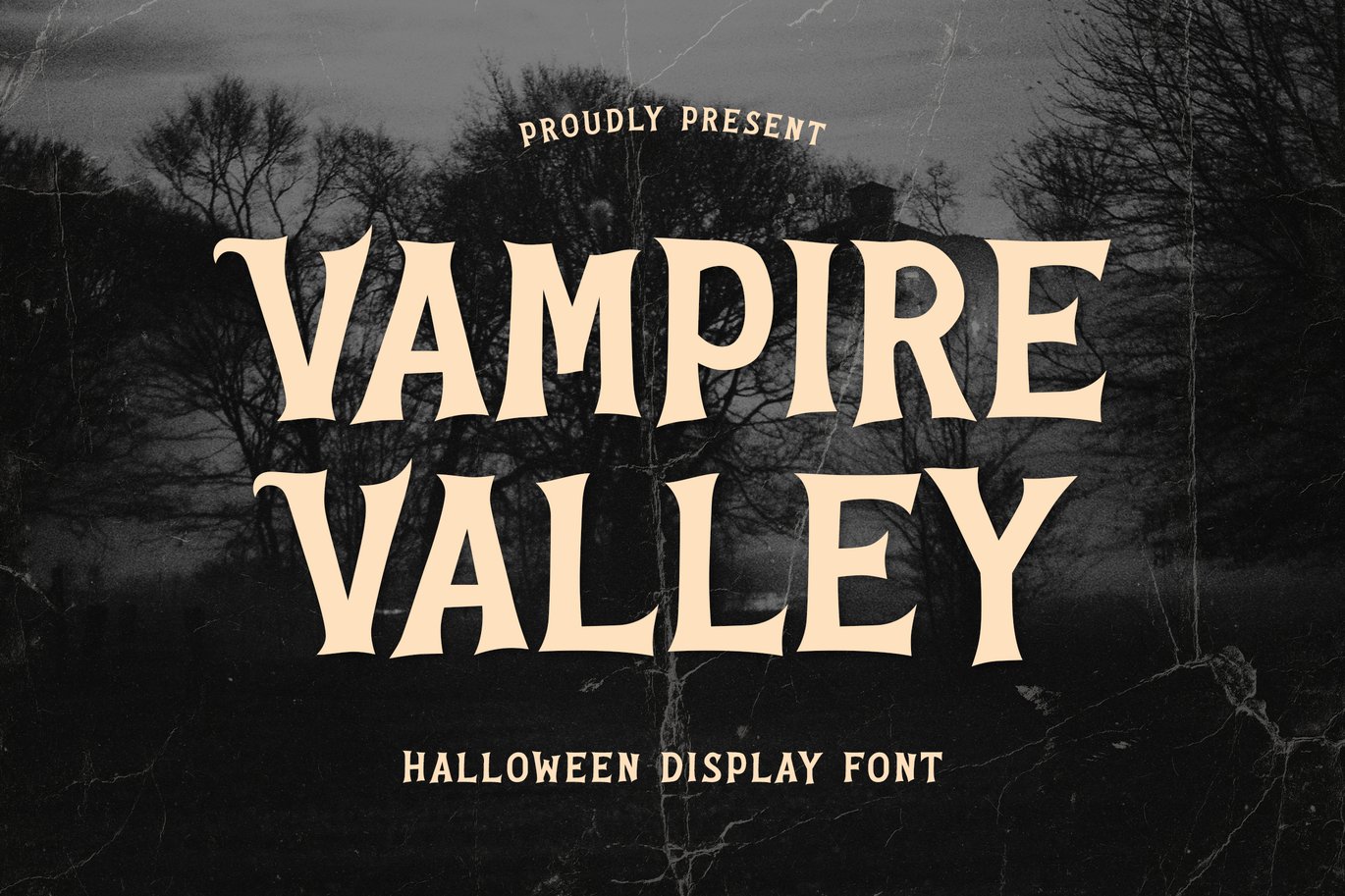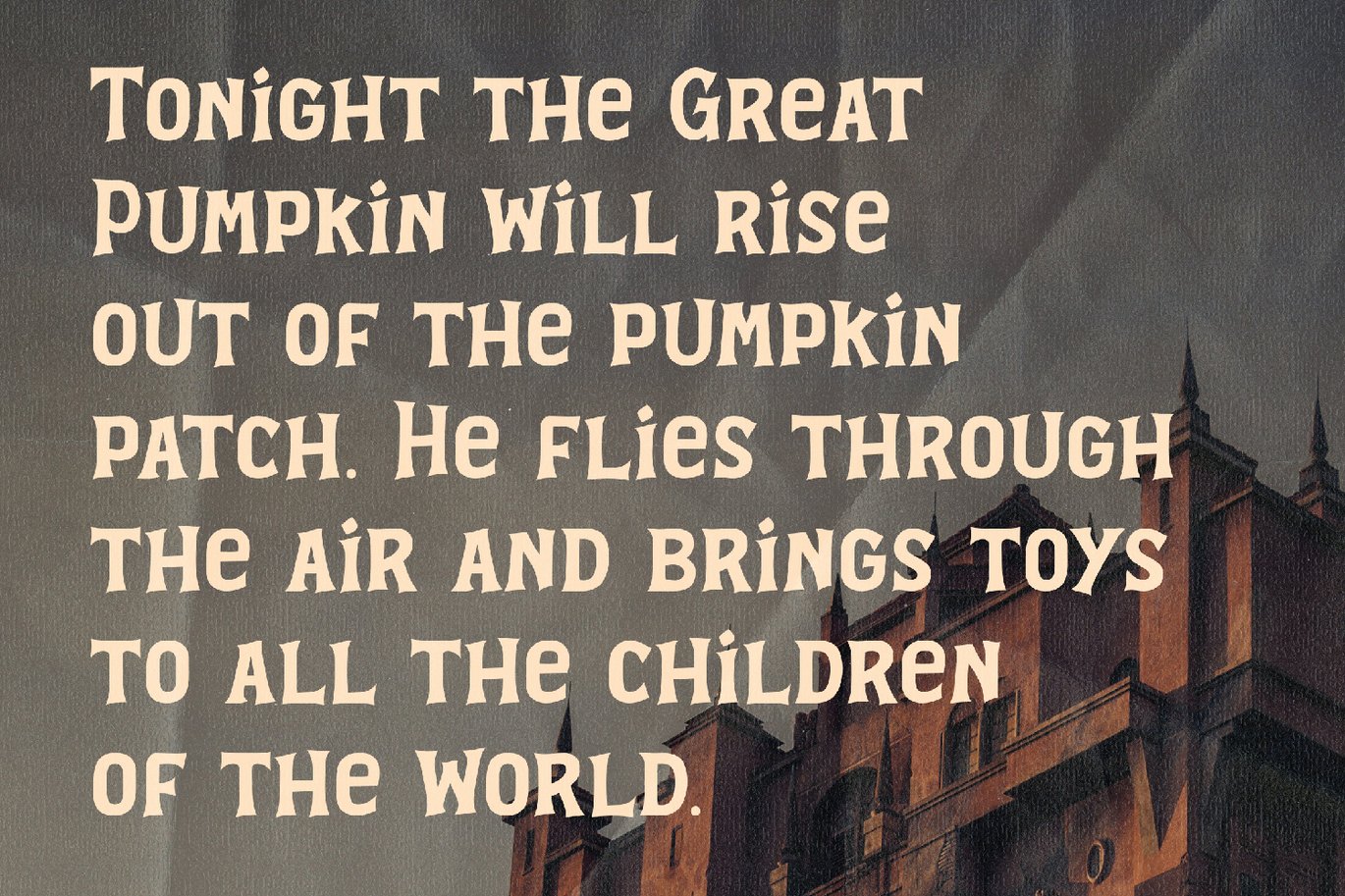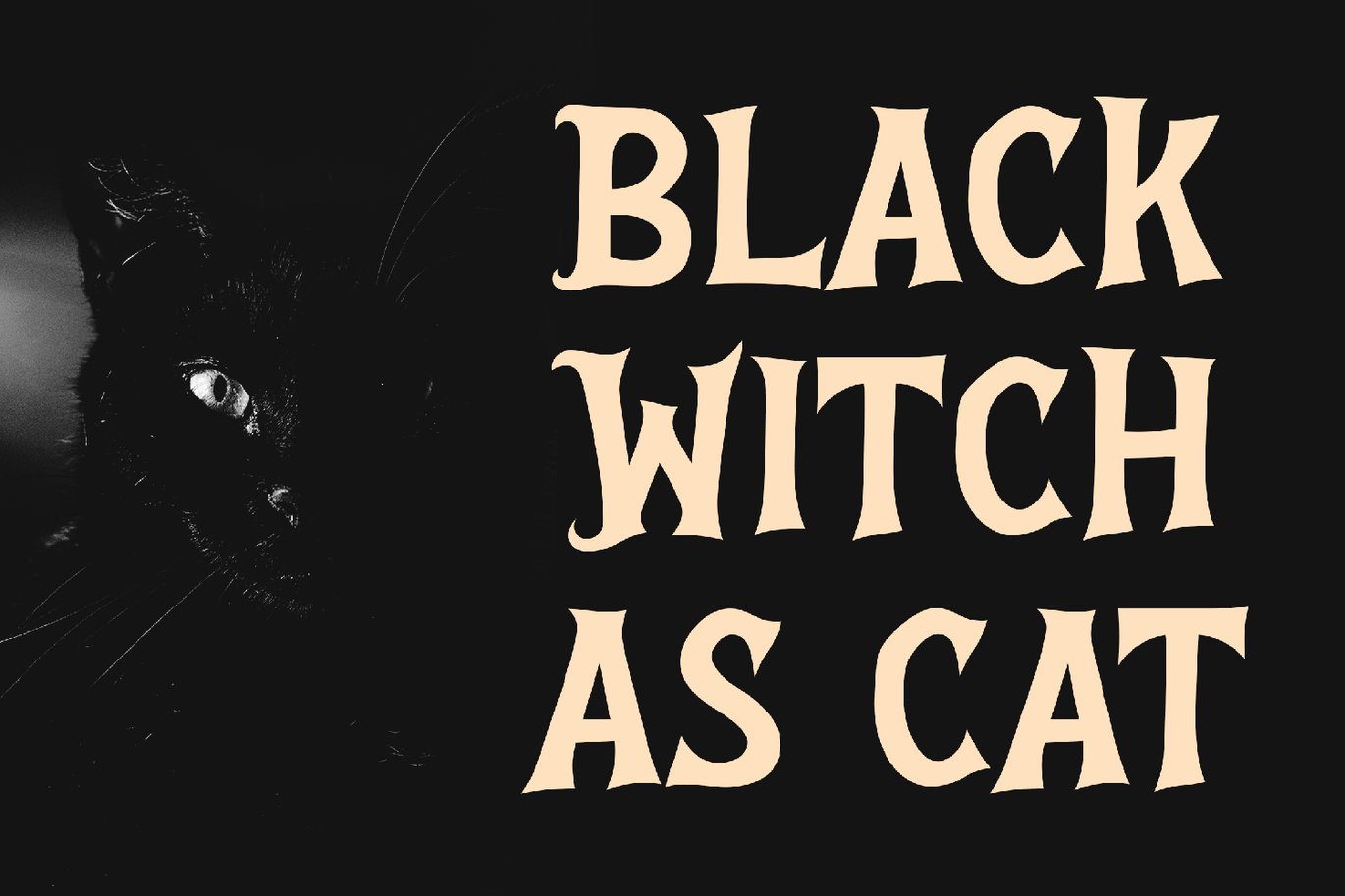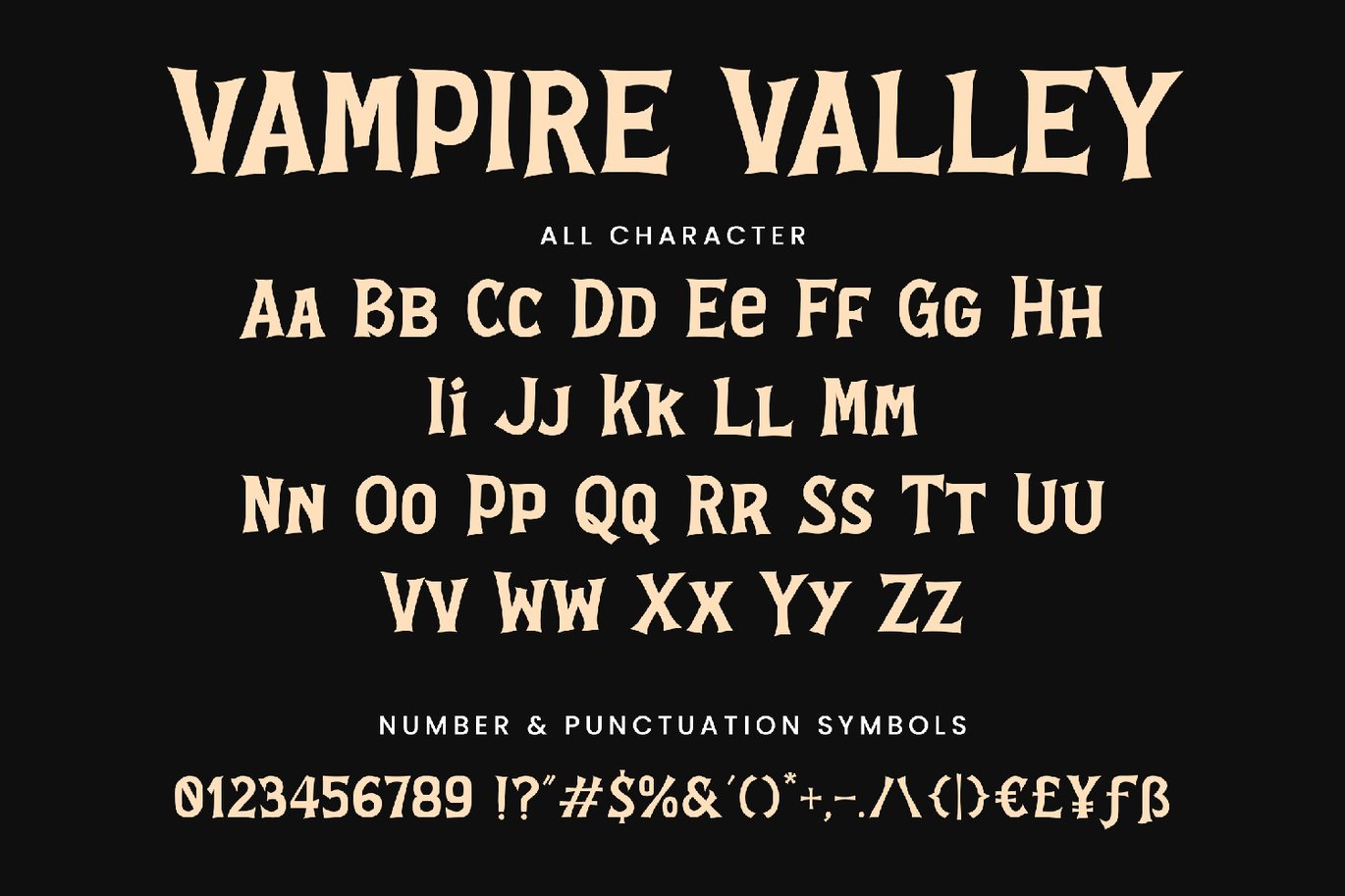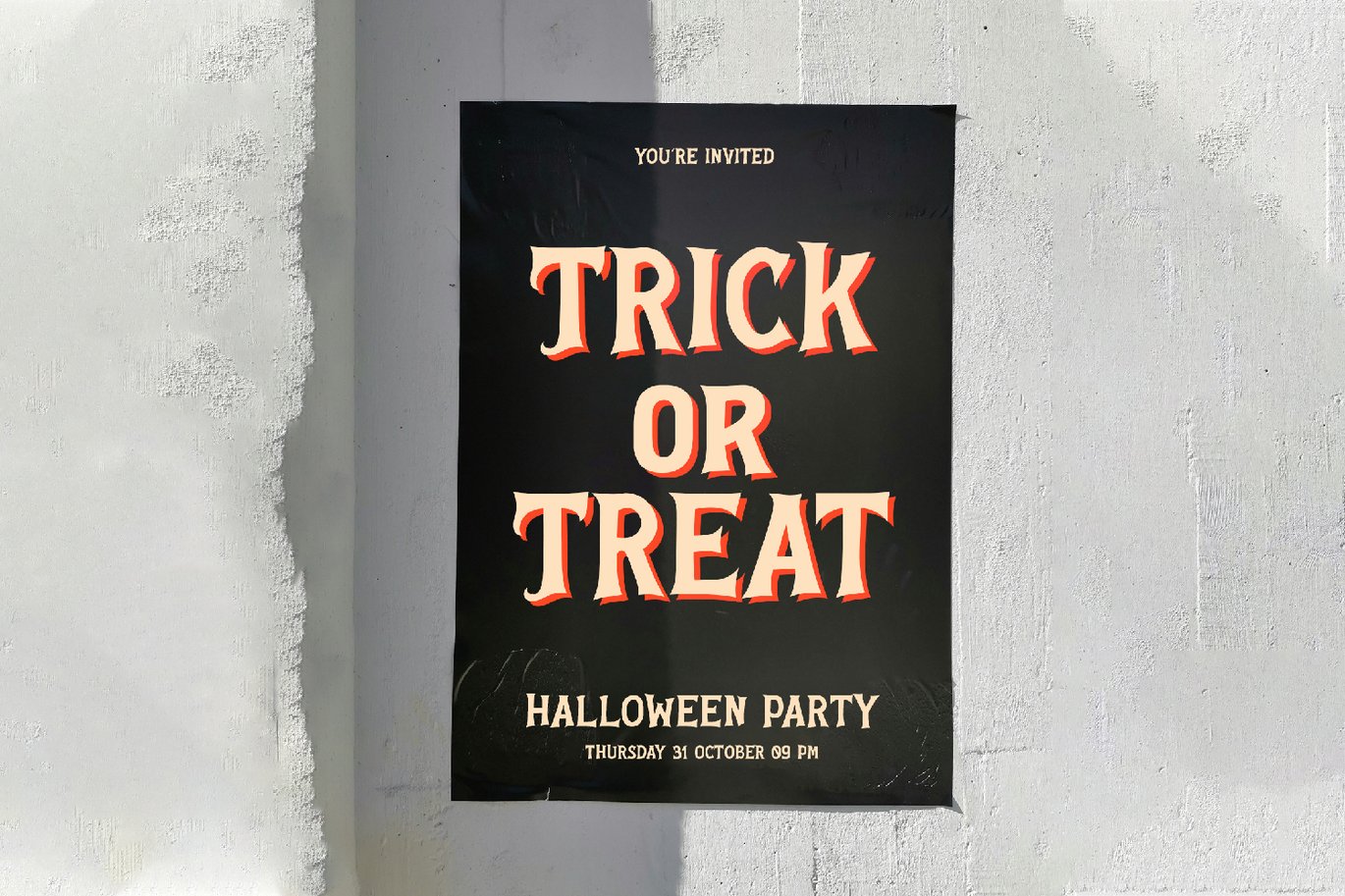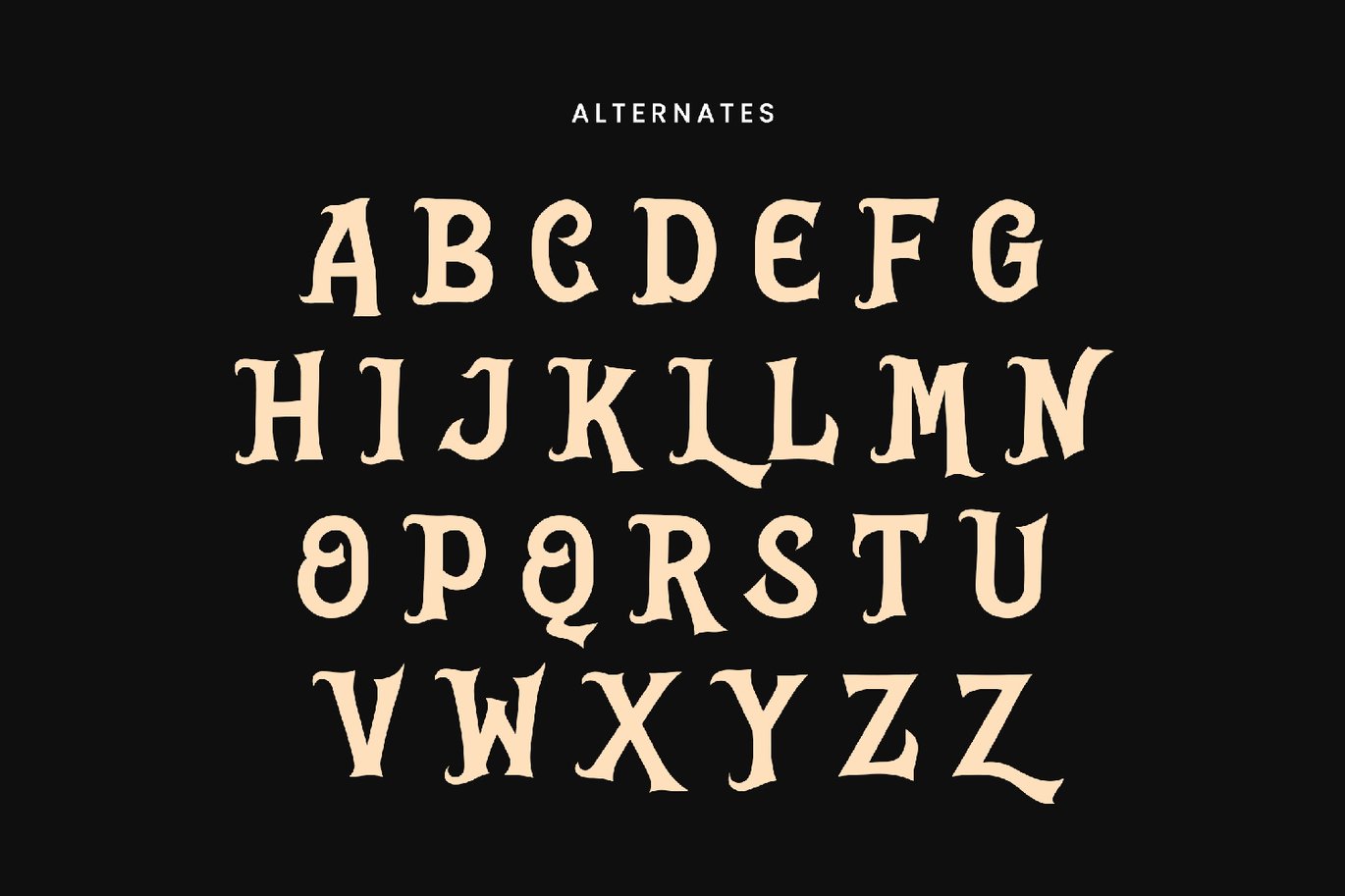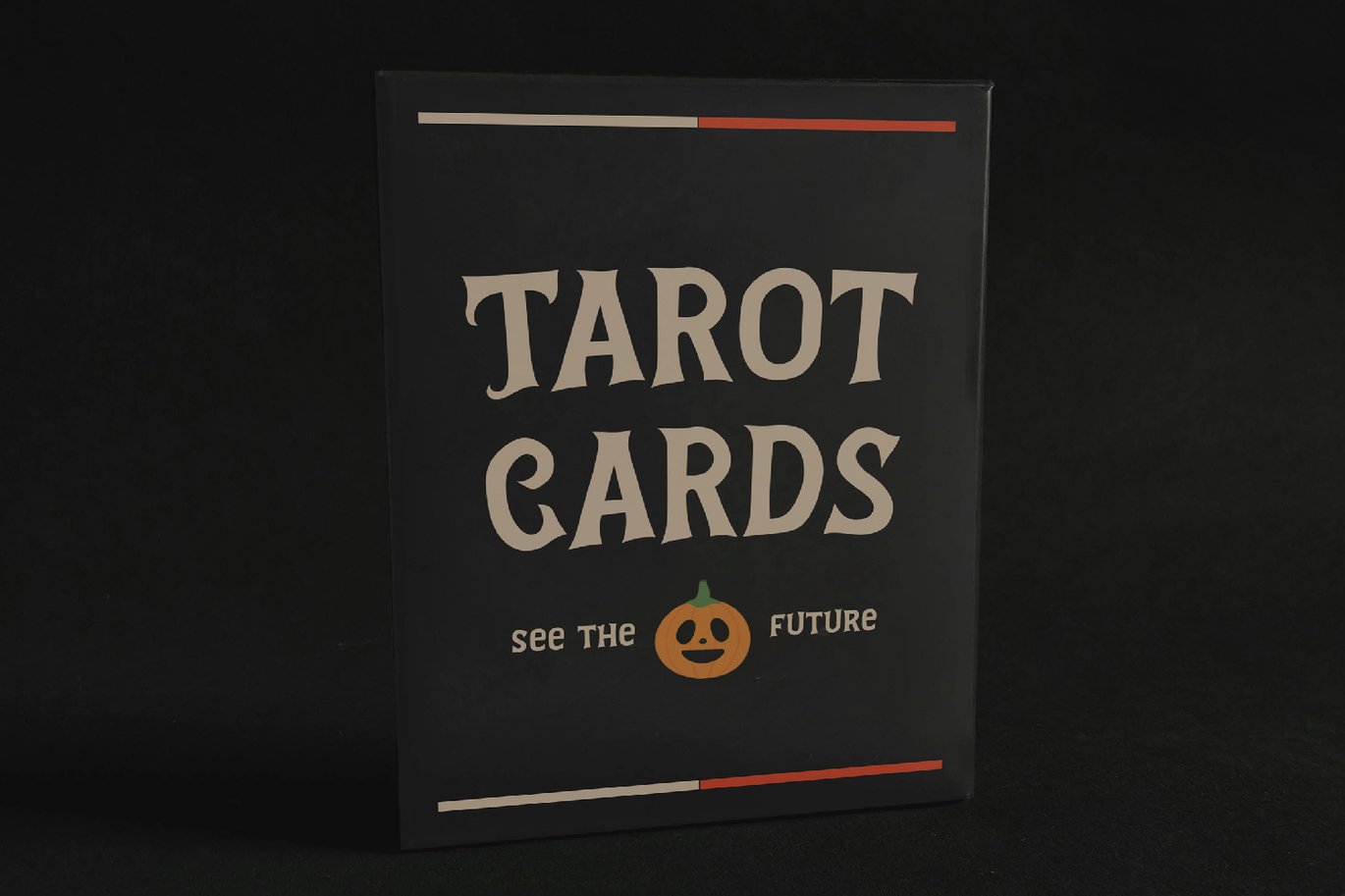
Vampire Valley – Halloween Font
Vampire Valley – Halloween Font contains a lowercase, uppercase, symbol, and also supports multi-language. There’s a lot of ligature in this font. Vampire Valley – Halloween Font also comes with ligatures, stylistic alternates, and many more.